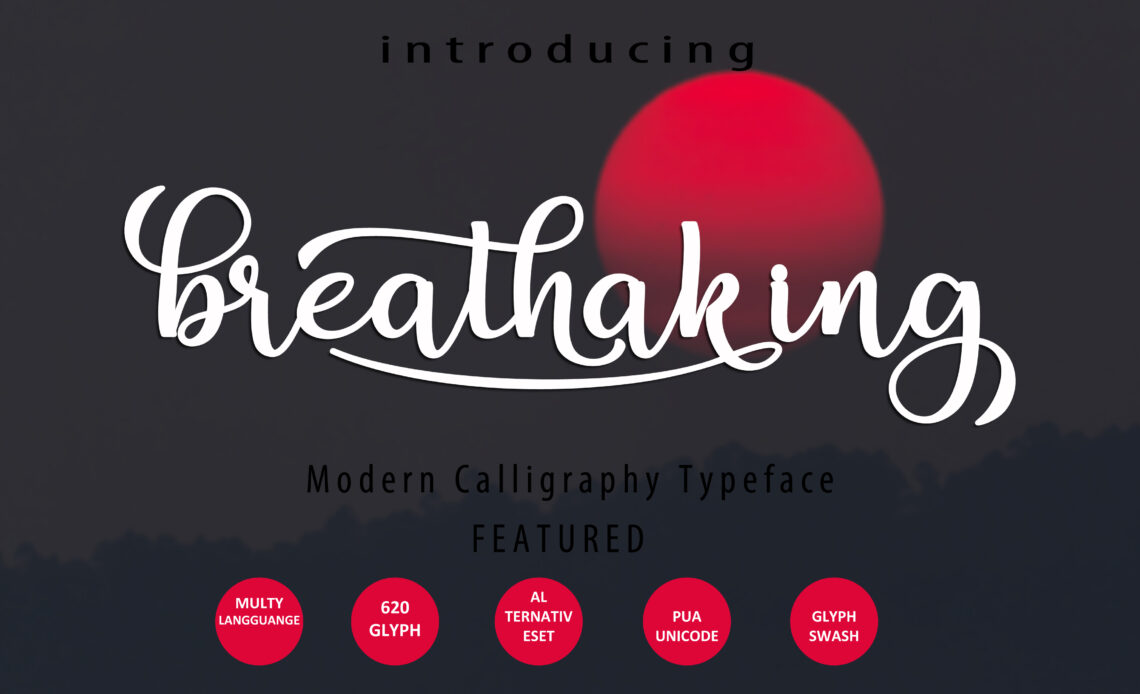
Prepare to be mesmerized by Breathaking Script Font, an exquisite creation from the talented hands of zulkhairilettering. This script font is a symphony of elegance, grace, and enchantment, crafted to elevate your designs to breathtaking new heights.
Immerse yourself in the world of Breathaking Script, where every letter is a work of art, flowing seamlessly from one to the next, like a gentle caress of a feather. Whether you're a seasoned designer or a creative enthusiast, Breathaking Script is your gateway to captivating designs that will leave a lasting impression.
With its inherent charm and undeniable allure, Breathaking Script is the perfect font for a myriad of projects, from wedding invitations to heartfelt messages, branding materials to social media posts. Its versatility knows no bounds, and its ability to evoke emotion is simply unparalleled.
Elevate your designs to new heights with Breathaking Script, a font that embodies sophistication and timeless beauty. Embrace its captivating curves and flourishes, and watch as your creations come alive with a touch of magic.